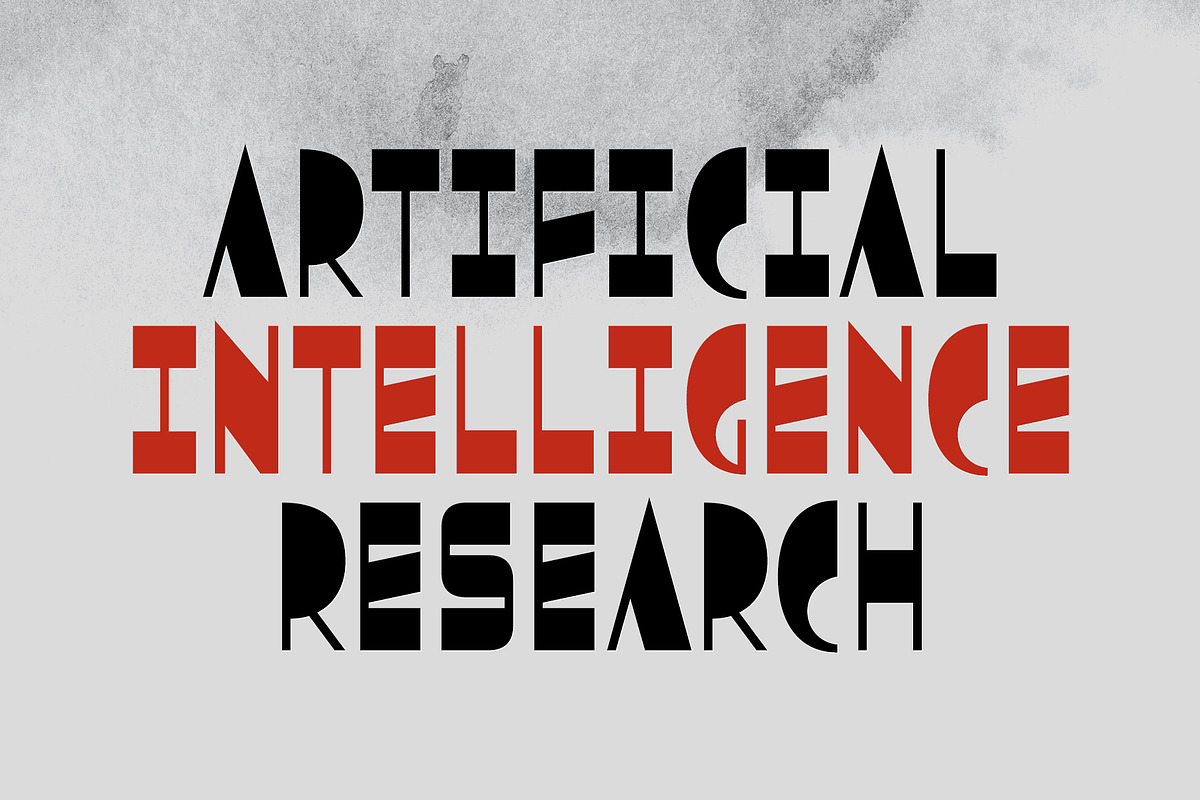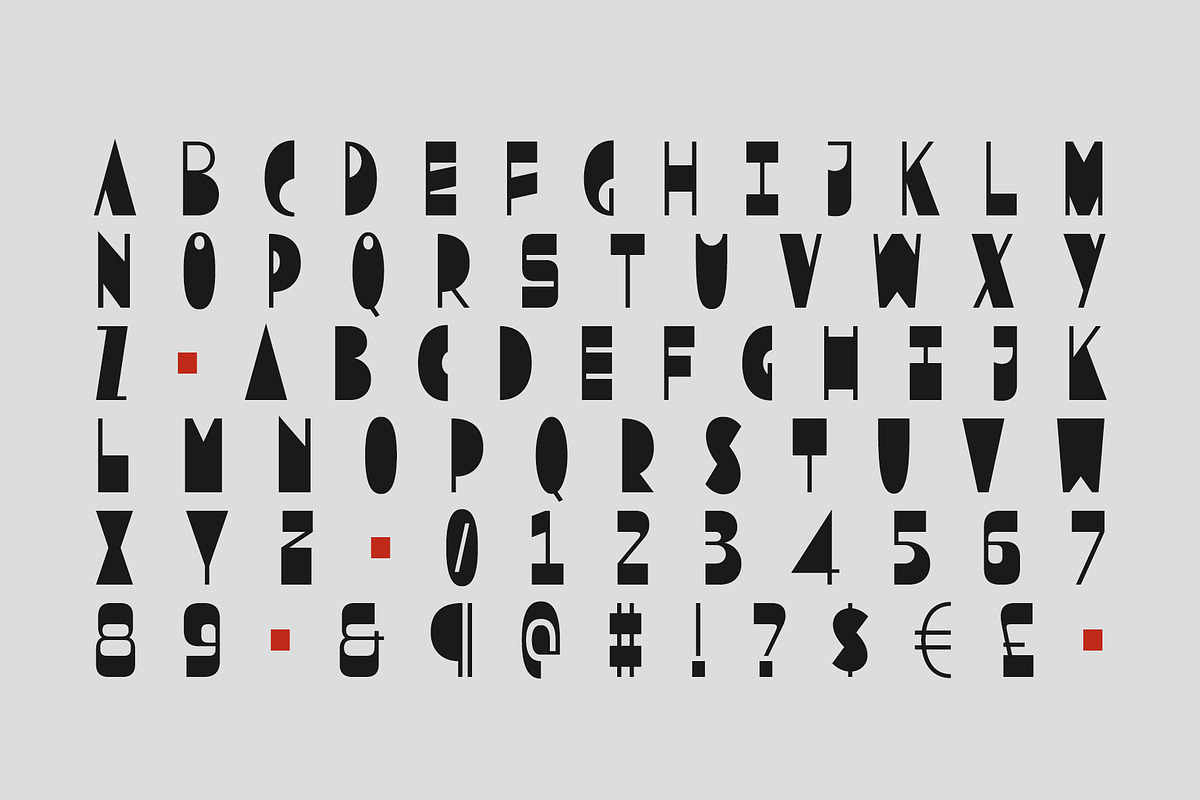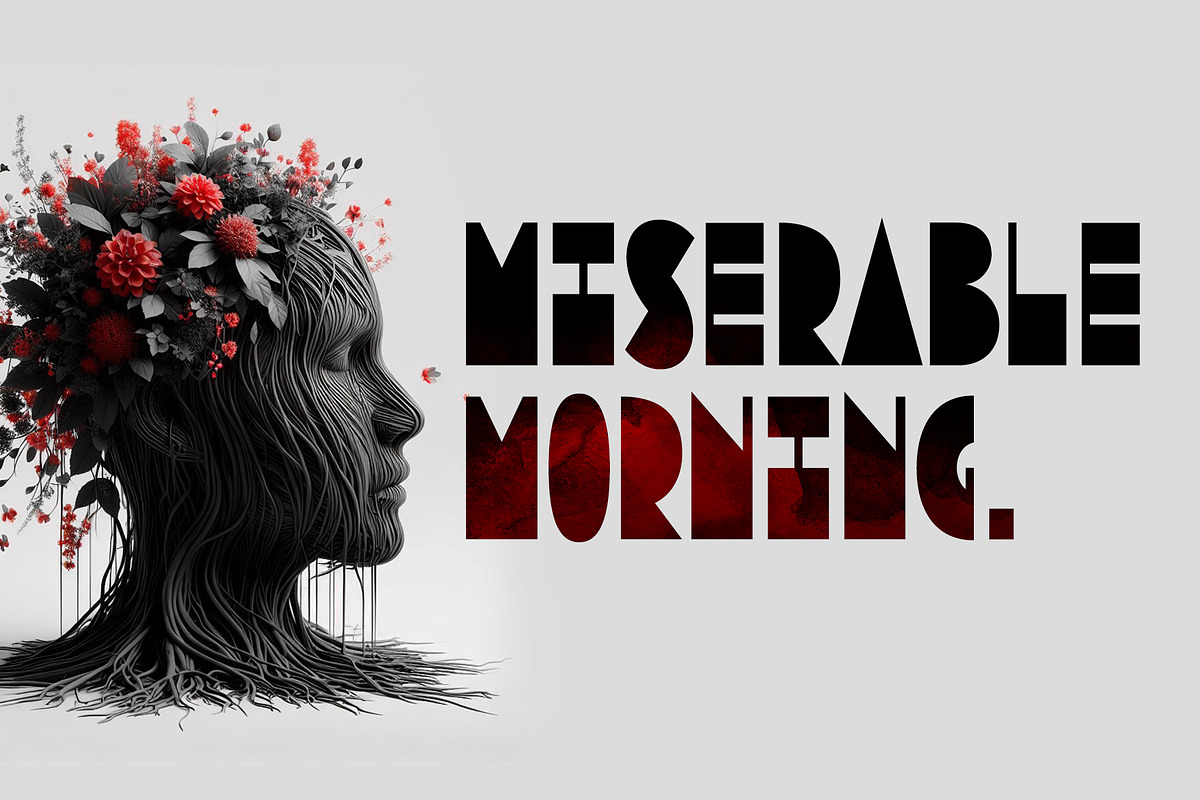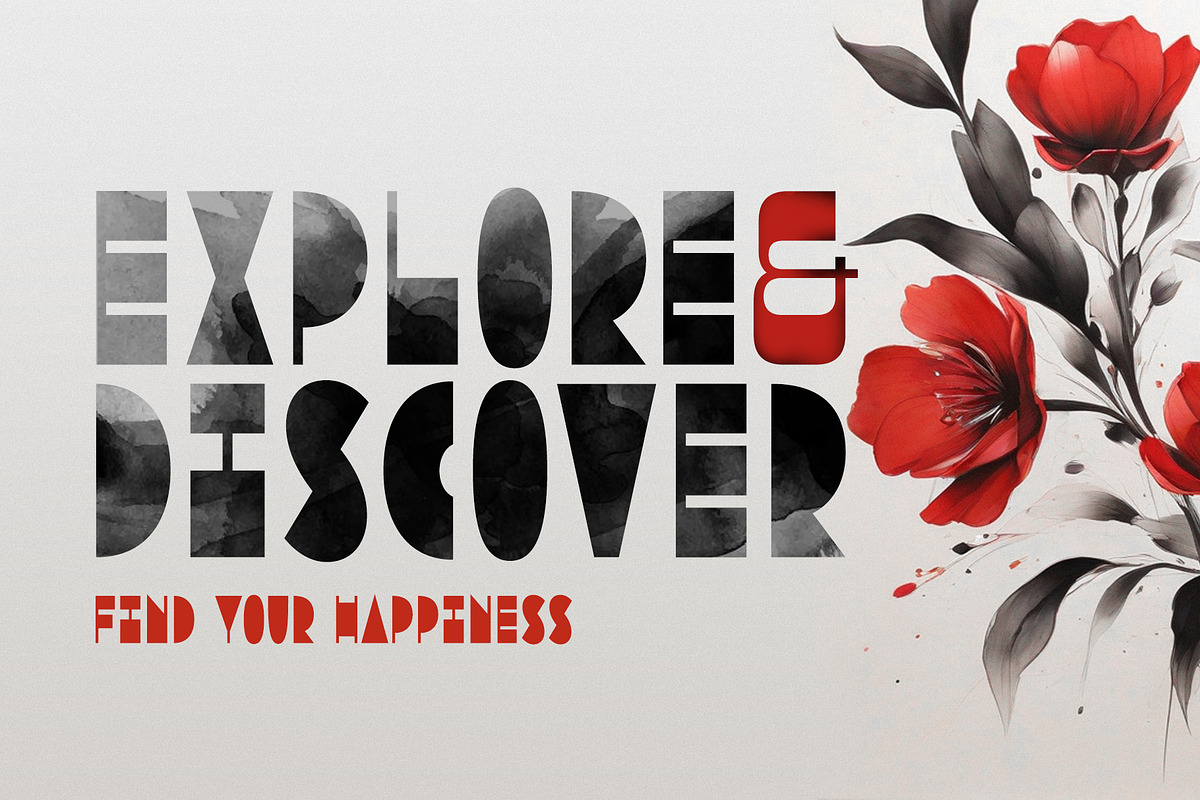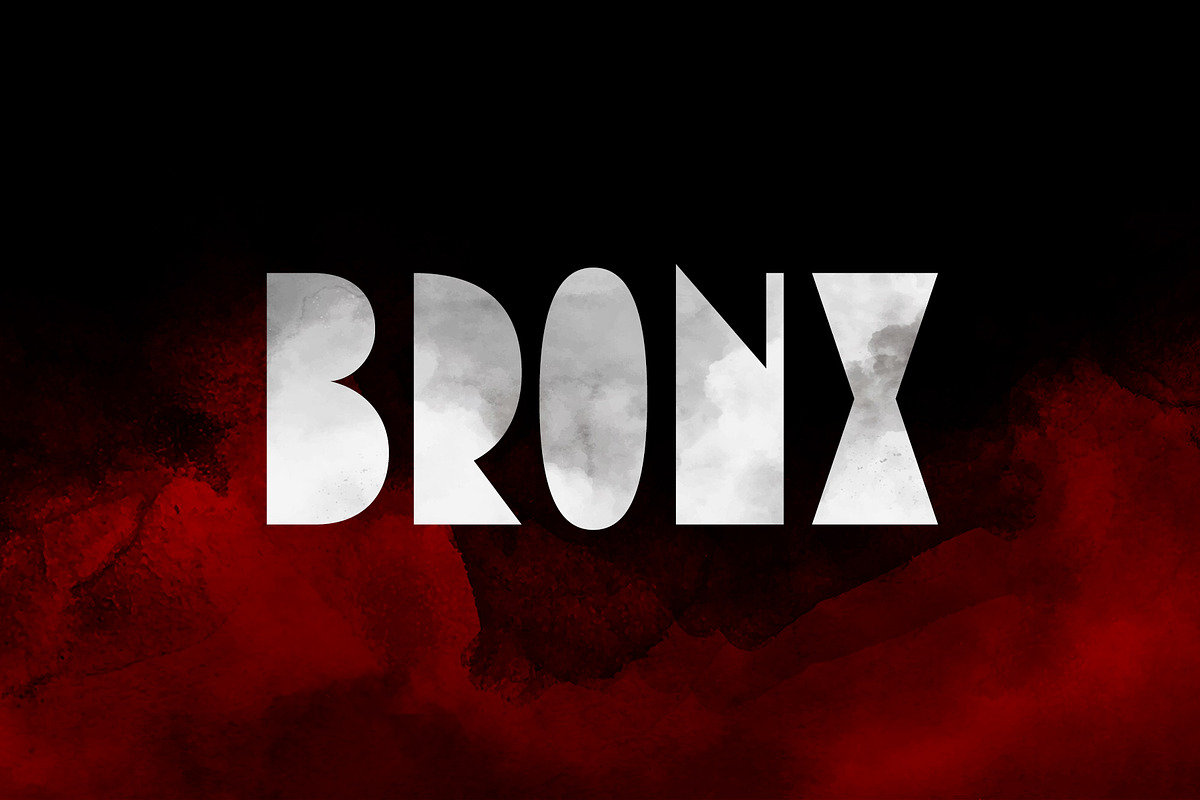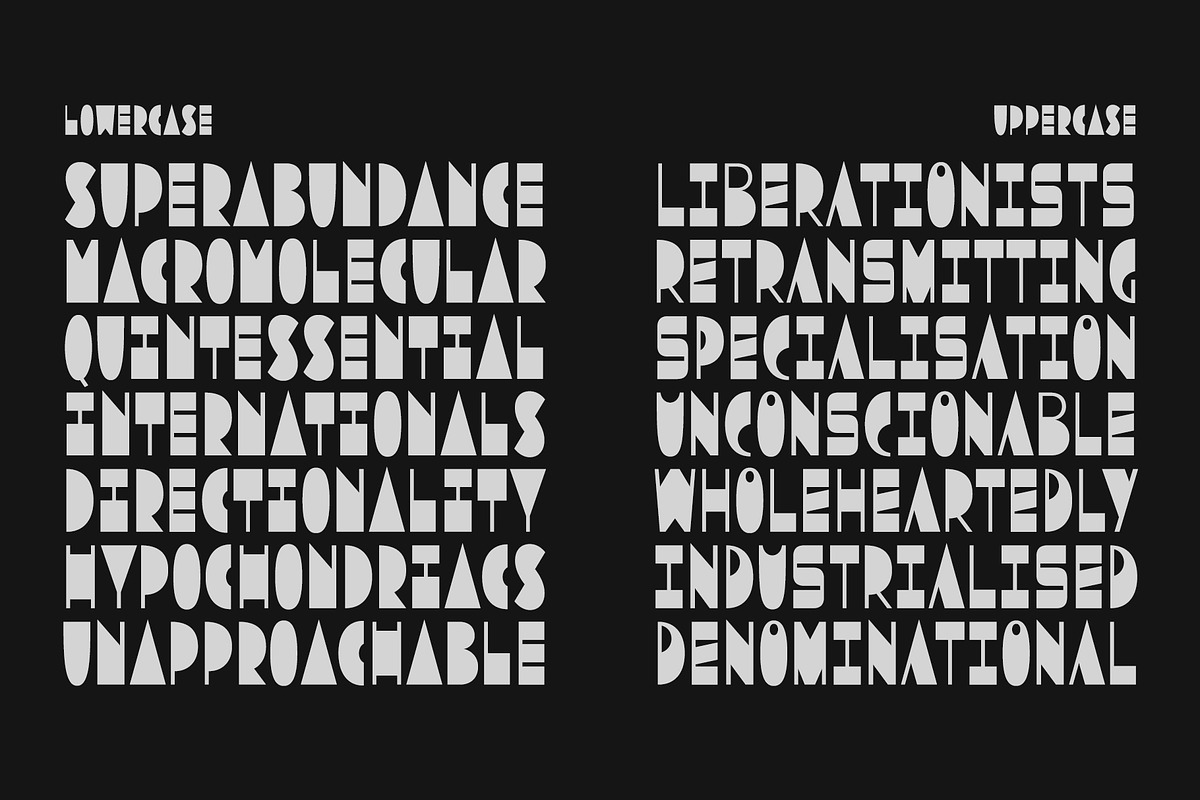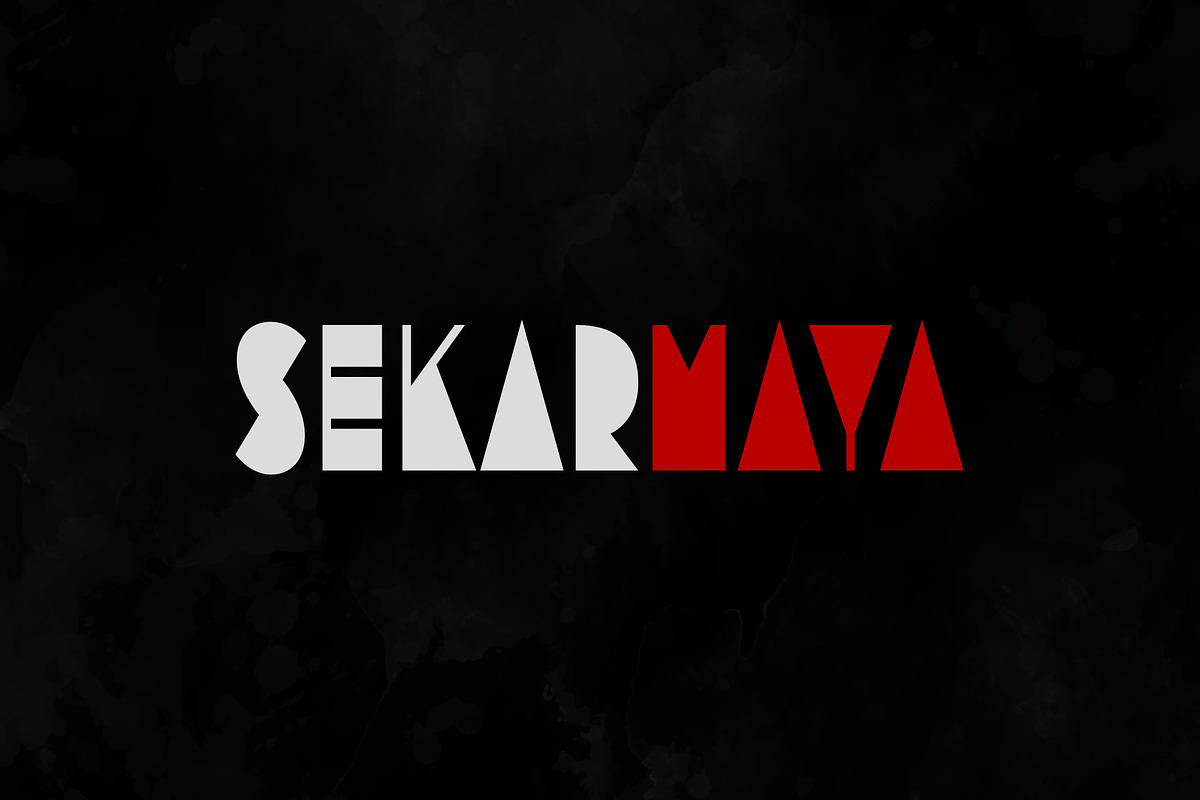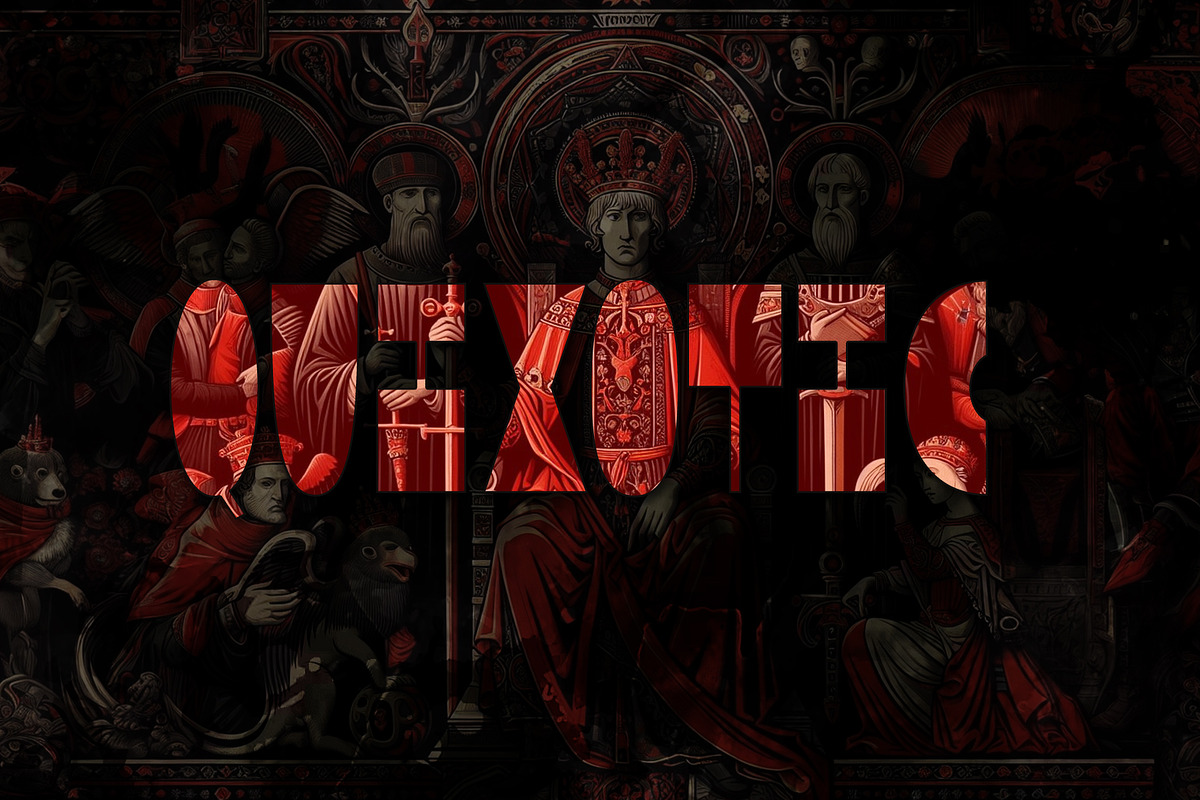
Sekarmaya
Introducing Sekarmaya, a geometric font that captivates with its high contrast and distinctive design. What sets Sekarmaya apart is its unique feature—certain letters highlight only the core characters while elegantly covering the rest, adding an intriguing touch to your typography.
This font is a perfect choice for posters and graphic designs that crave a personal and distinctive flair. Sekarmaya's geometric precision combined with its artistic detailing provides a harmonious balance, making it ideal for projects where you want to convey both structure and individuality.